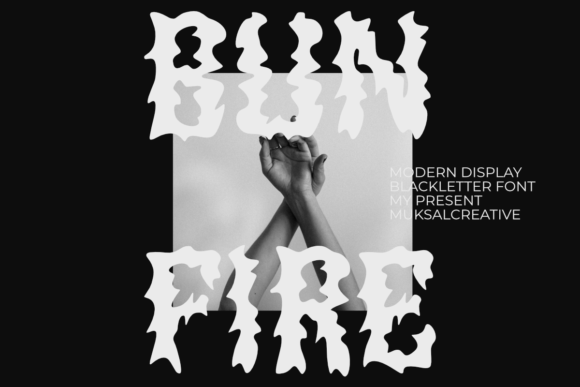
The Bunfire Font: A Blazing Combination of Strength and Elegance
I’ll never forget the design project that led me to discover the Bunfire font. I was working on a horror-themed poster for a client who wanted something that would capture the dark, mystical essence of their brand. As I scrolled through font after font, nothing seemed quite right – until I stumbled upon Bunfire. Its jagged, intense characters seemed to leap off the screen, as if scorched by flames. I was immediately hooked.
An Honest Review of Bunfire
- ✨ Unique and eerie design: Each letter in Bunfire features a one-of-a-kind, captivating design that adds a touch of mystery to any project.
- ✅ Perfect blend of strength and femininity: The font combines bold, jagged characters with a subtle feminine charm, making it ideal for projects that require a dark, mystical vibe.
- 💡 Versatility: Bunfire is suitable for a wide range of creative projects, from horror posters and book covers to branding endeavors.
While Bunfire is an exceptional font, there are a few things to keep in mind:
- ⚠️ Legibility at small sizes: Due to its bold and jagged design, Bunfire may not be the best choice for body text or small font sizes.
- 🤔 Limited use in formal contexts: The font’s intense, mystical vibe may not be suitable for formal or professional projects that require a more traditional aesthetic.
- Experiment with OpenType features, such as stylistic alternates, to add more variety to your text.
The Backstory of Bunfire
The Bunfire font was designed with the intention of capturing the essence of a dark, mystical world. Its creator aimed to combine the strength and intensity of flames with a touch of femininity, resulting in a font that is both captivating and elegant. While the true story behind Bunfire’s creation may be shrouded in mystery, its impact on the design world is undeniable.
| What type of projects is Bunfire best suited for? | Bunfire is ideal for creative projects that require a dark, mystical vibe, such as horror posters, book covers, and branding endeavors. |
| Is Bunfire a versatile font? | Yes, Bunfire can be used for a wide range of projects, from bold and dramatic designs to more subtle and elegant applications. |
| Does Bunfire support OpenType features? | Yes, Bunfire supports OpenType features, such as stylistic alternates and glyphs, which can add more variety and depth to your designs. |